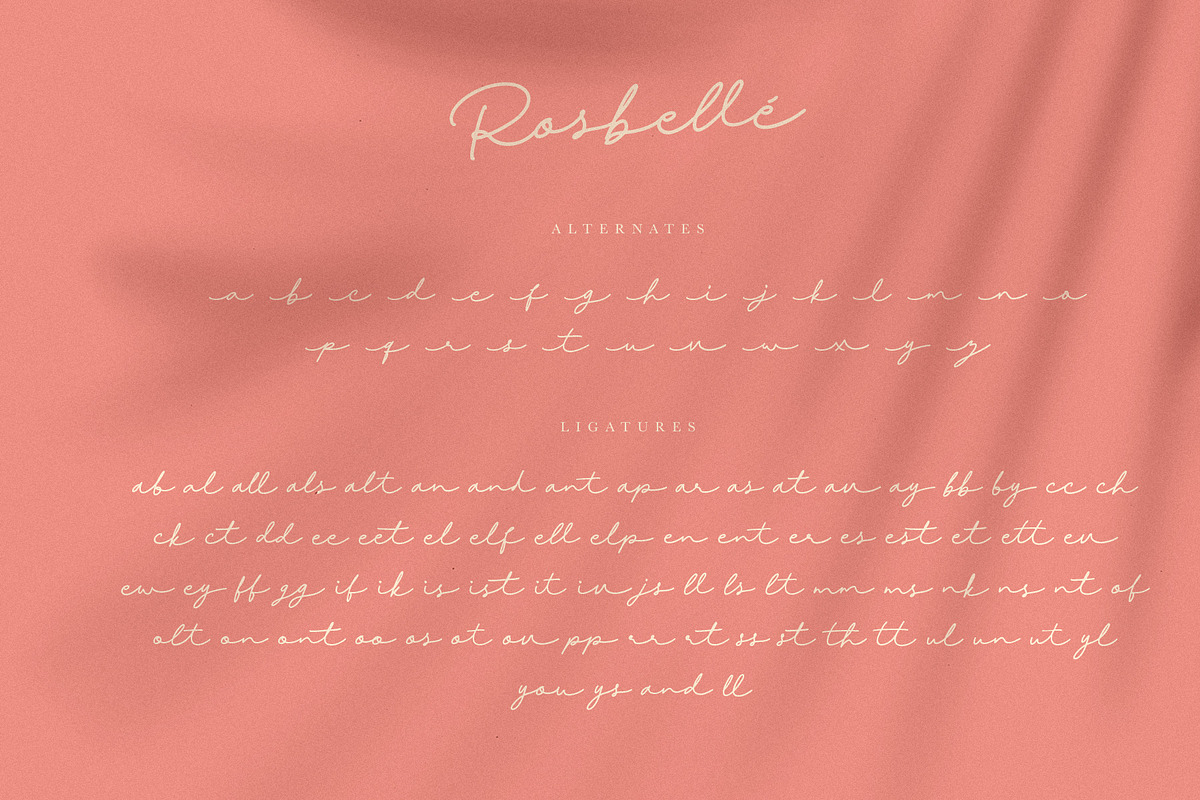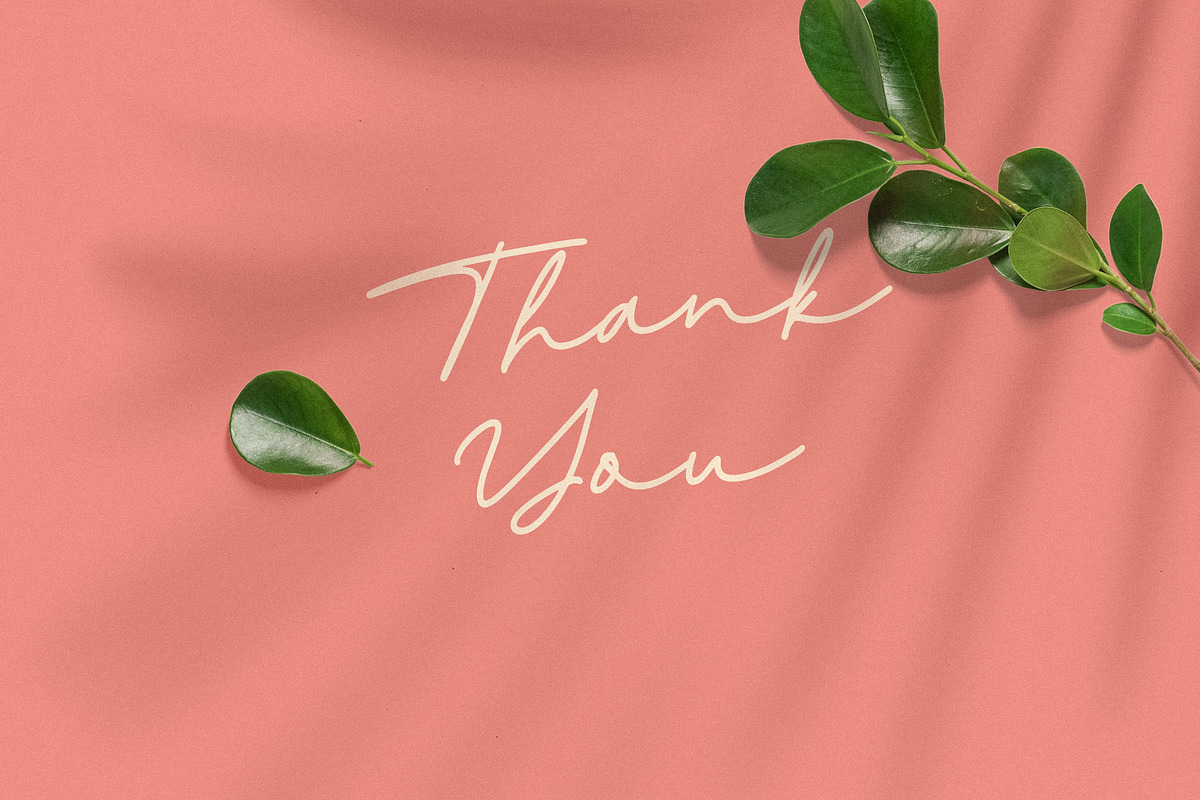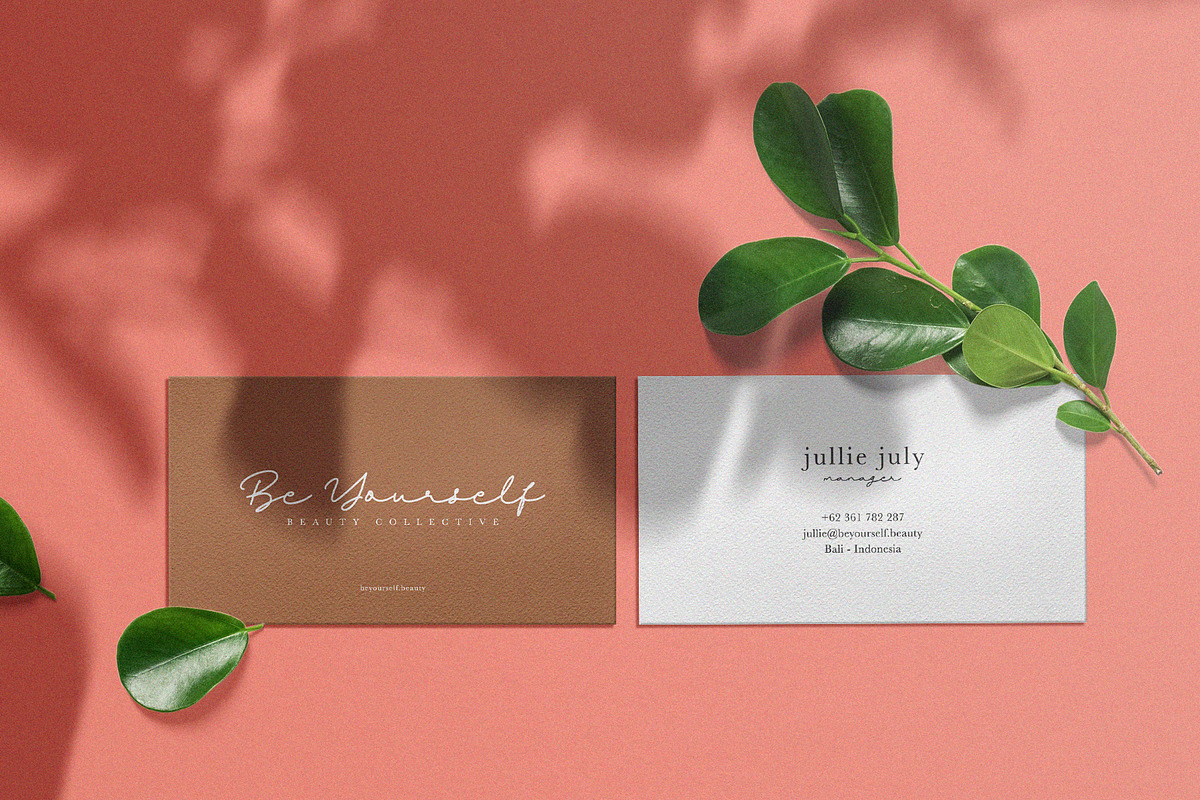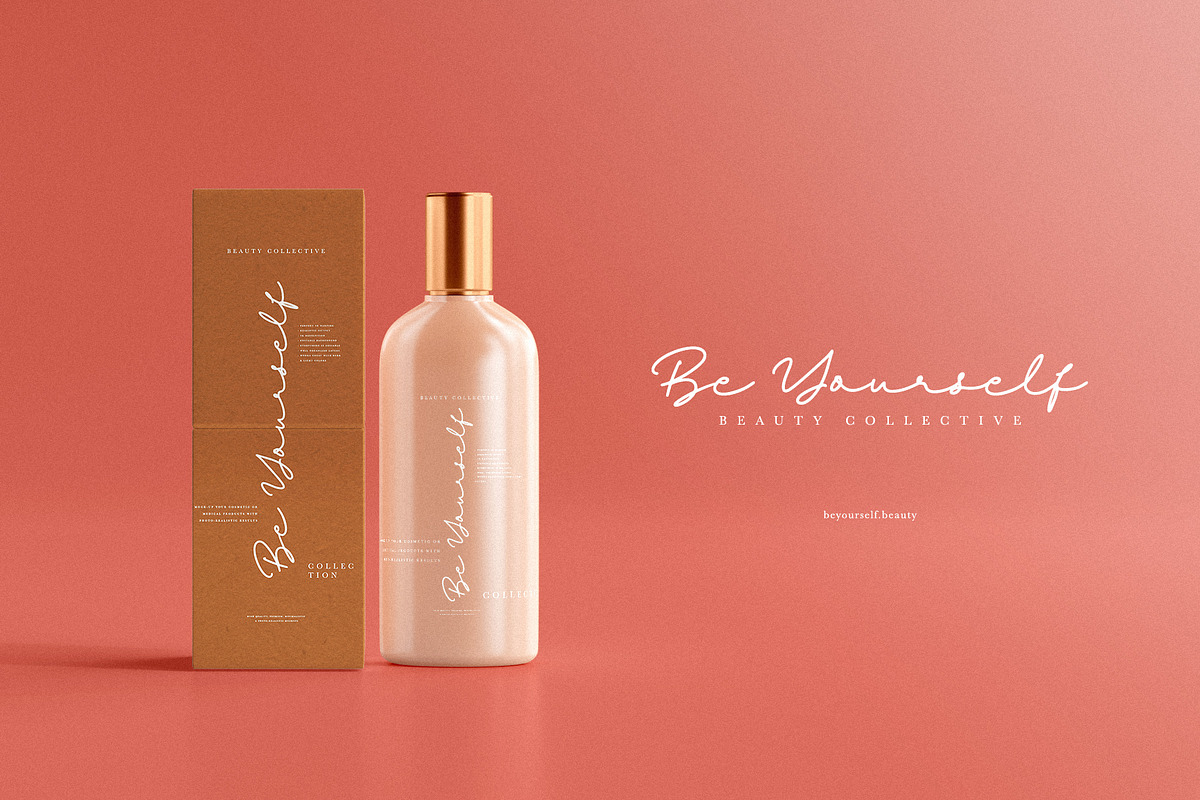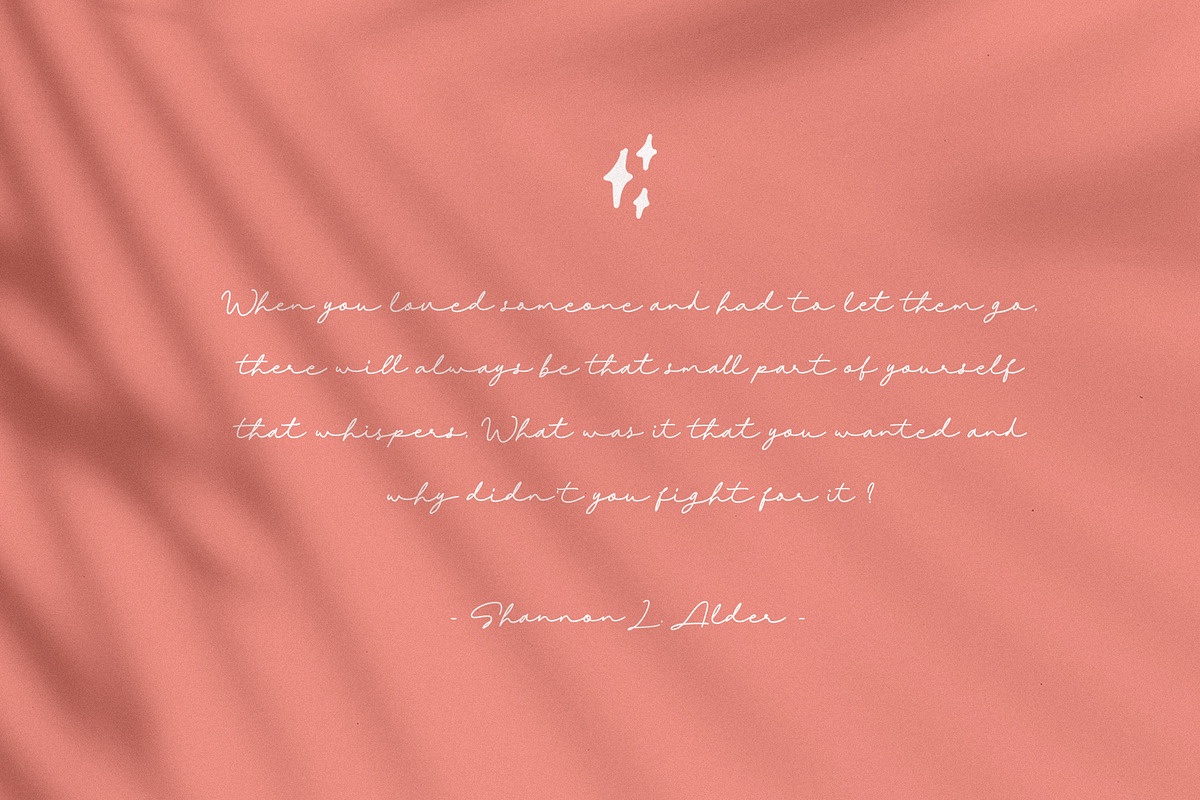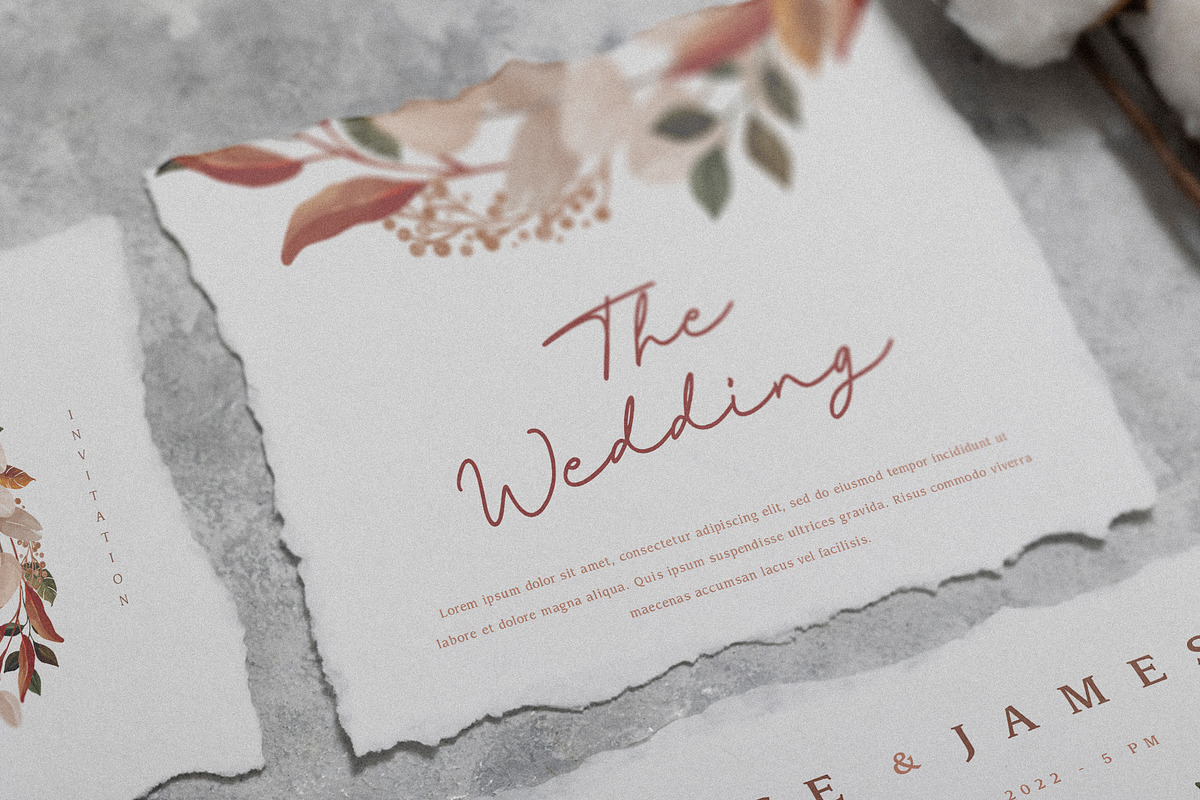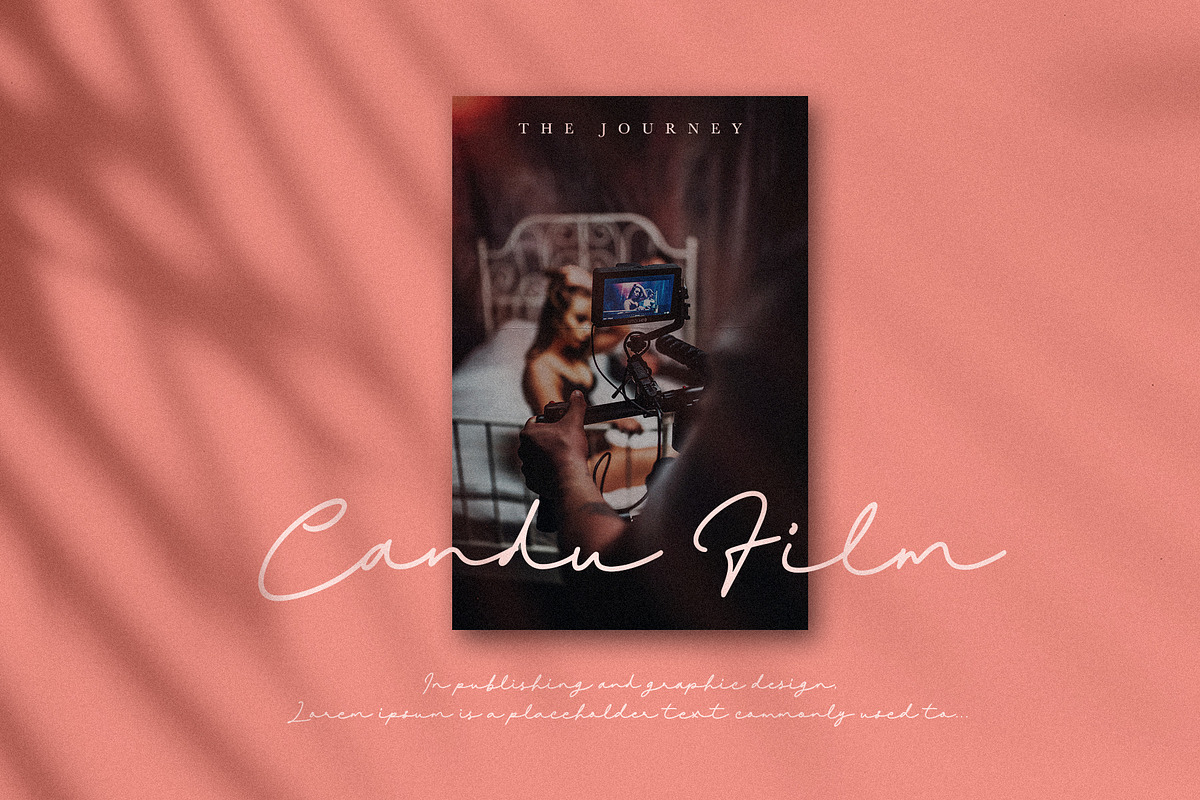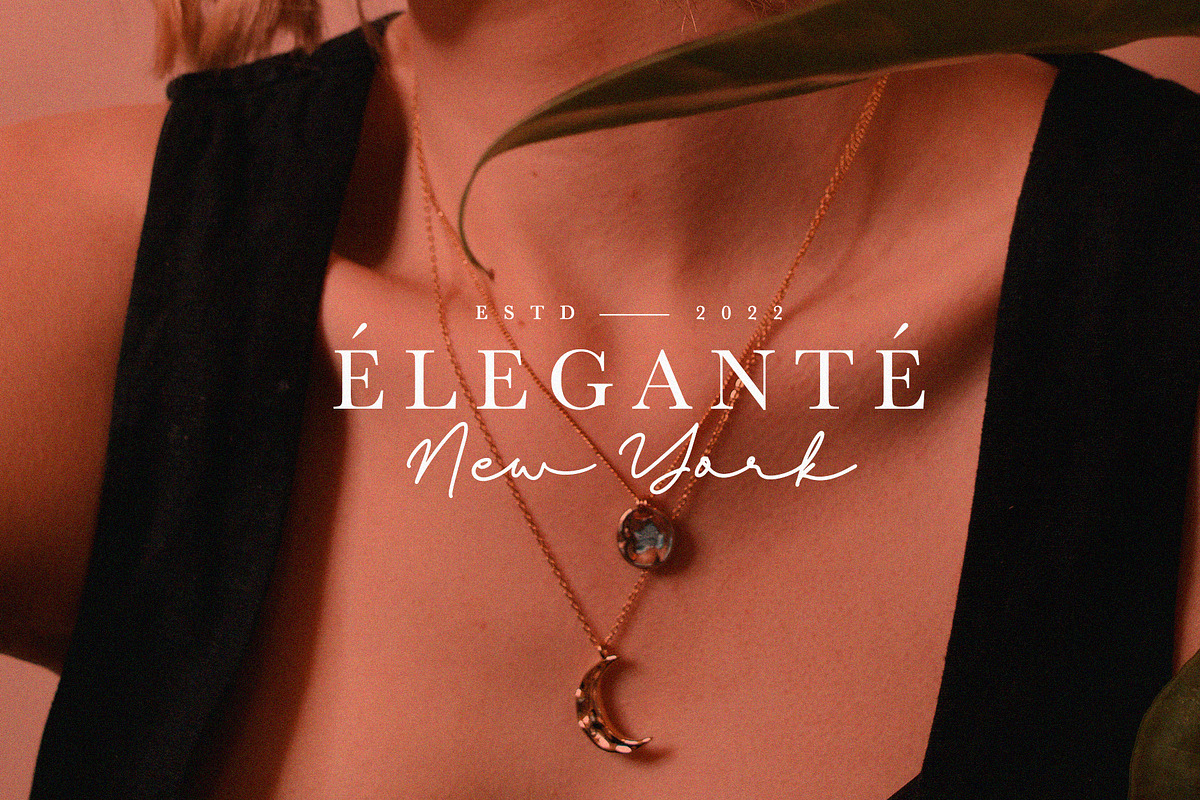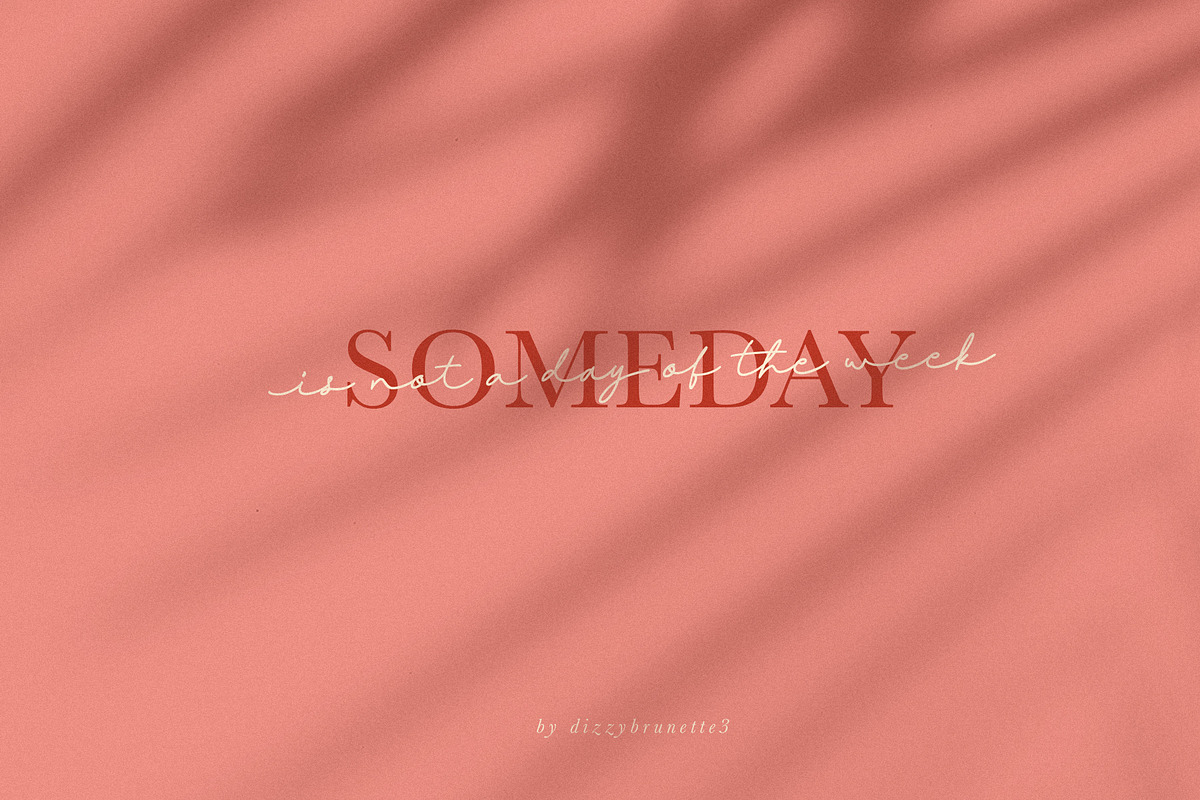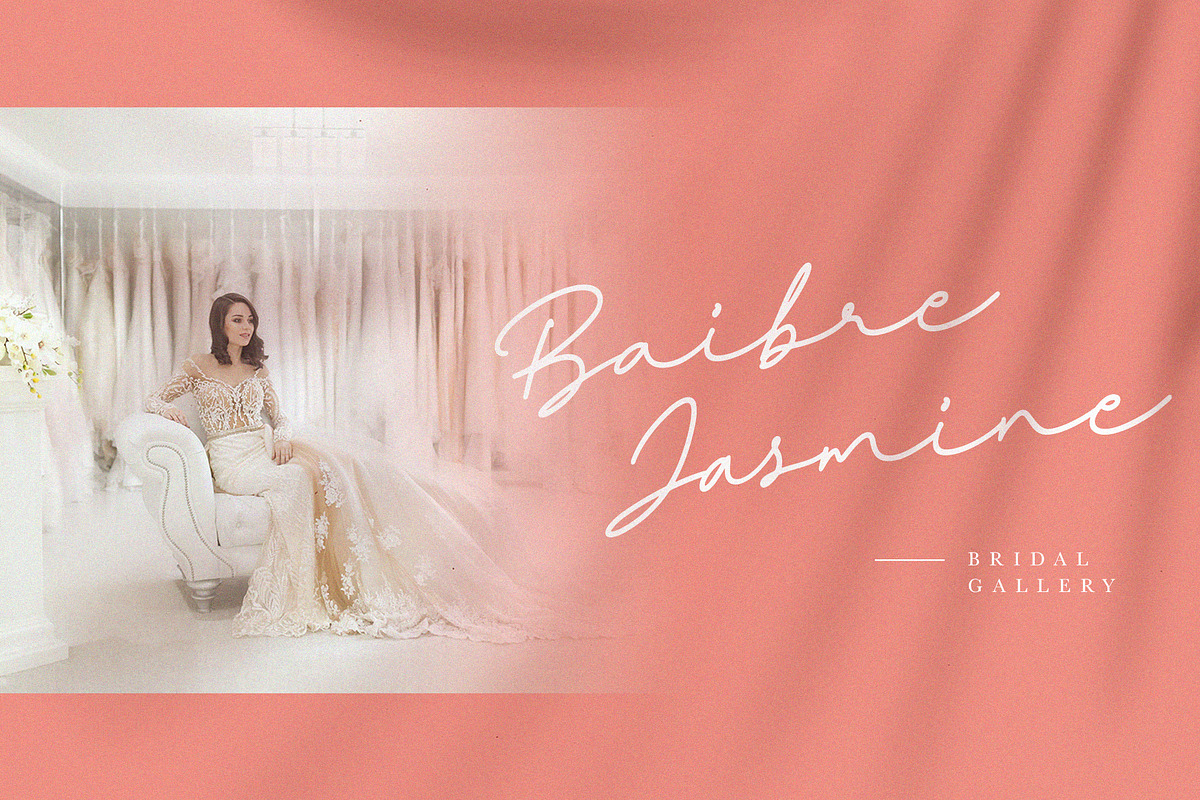
Rosbellé
Introducing the Rosbellé Elegant Script Typeface. This elongated signature script made with consistent strokes so as to produce works that will perfect your design.
Rosbellé is very suitable for branding projects, logo, wedding designs, social media posts, advertisements, product packaging, product designs, label, photography, watermark, invitation and any projects that need handwriting taste or even feminine tattoo designs!